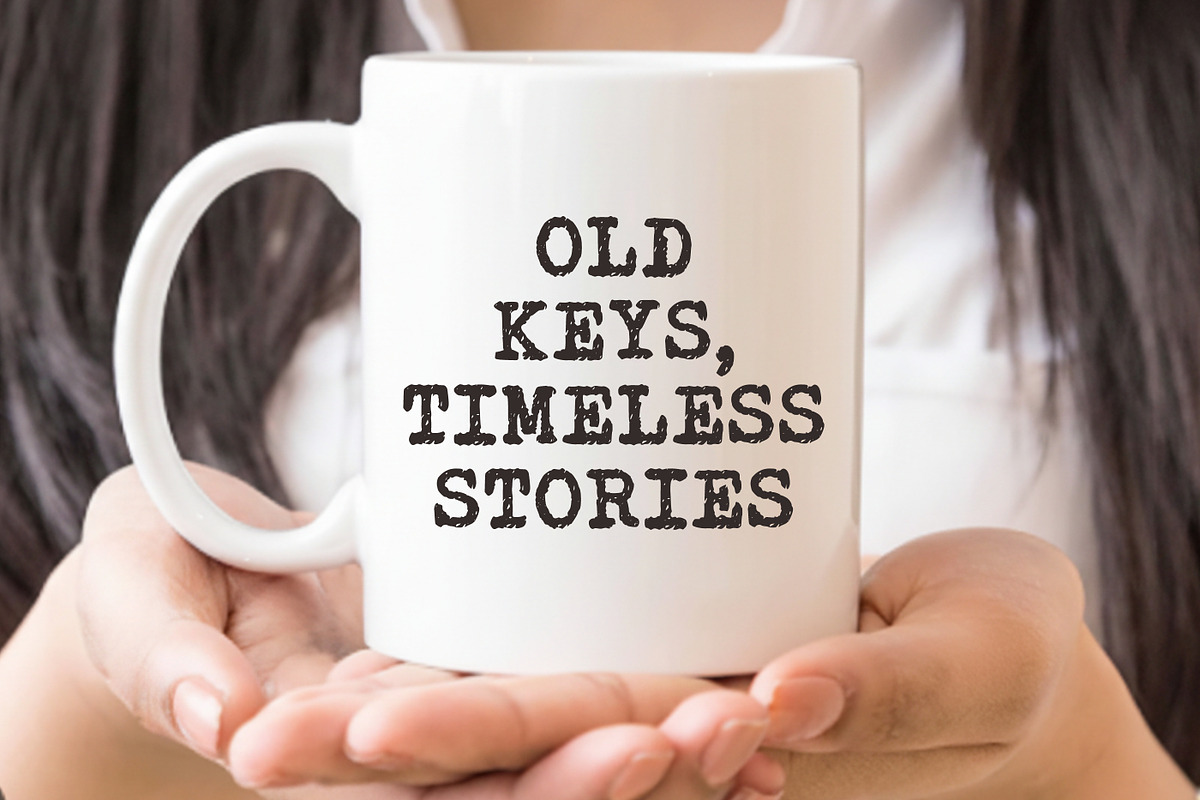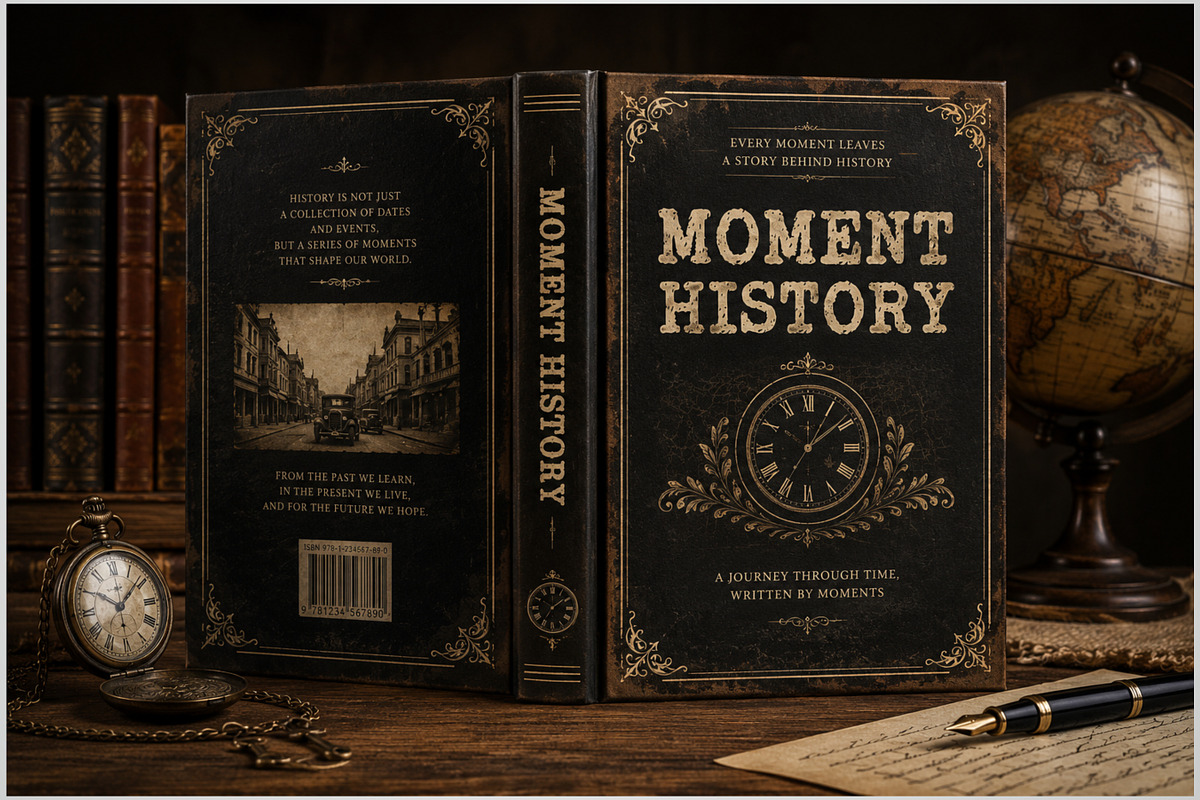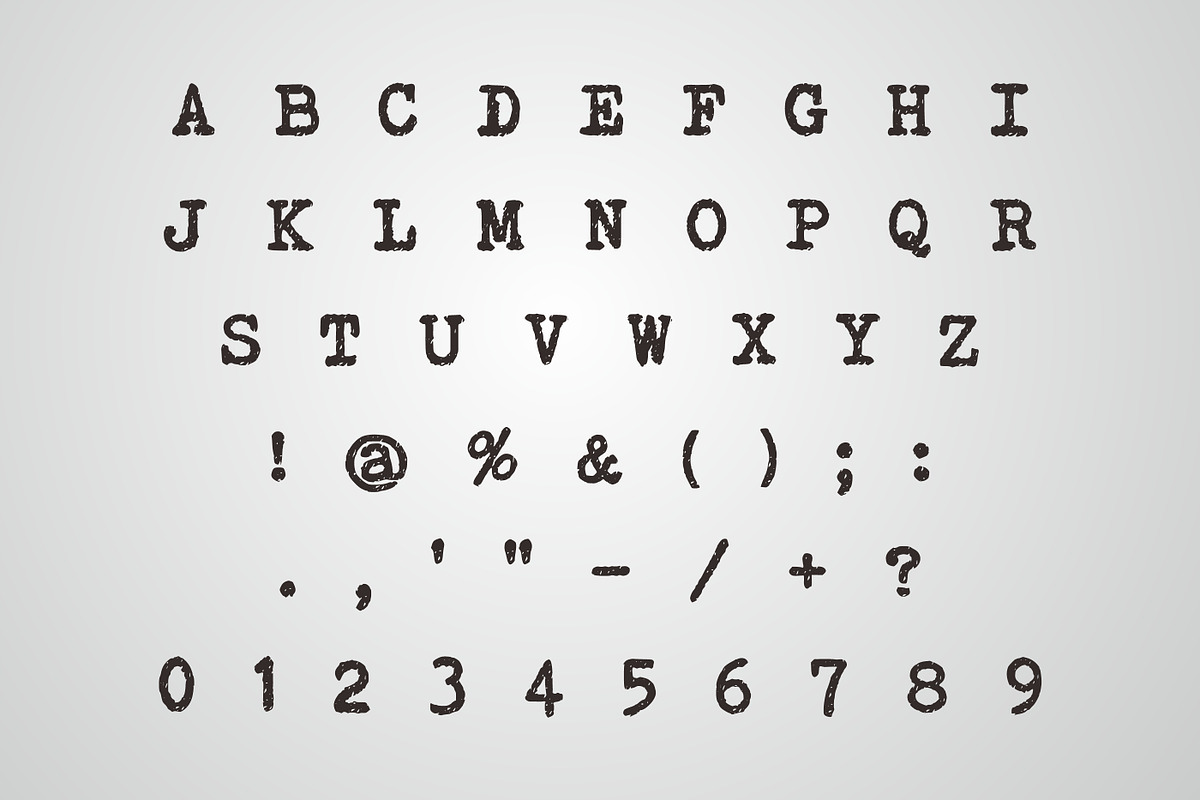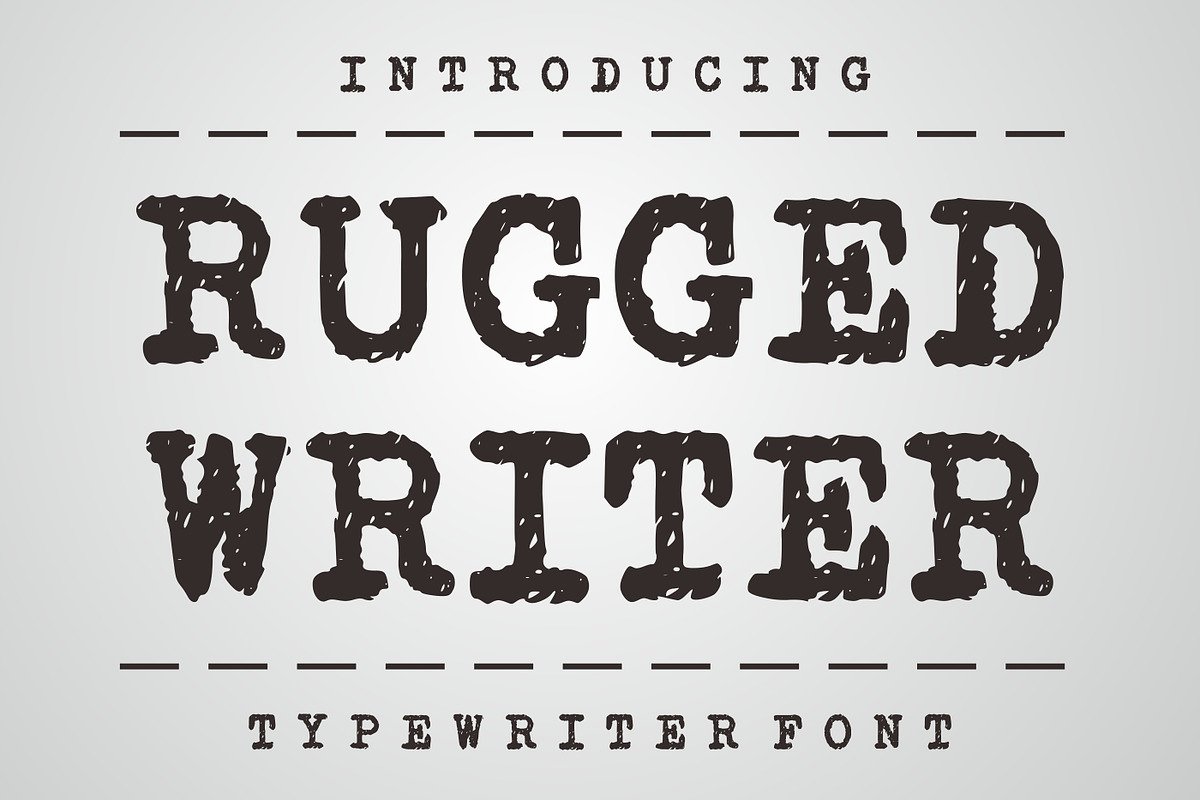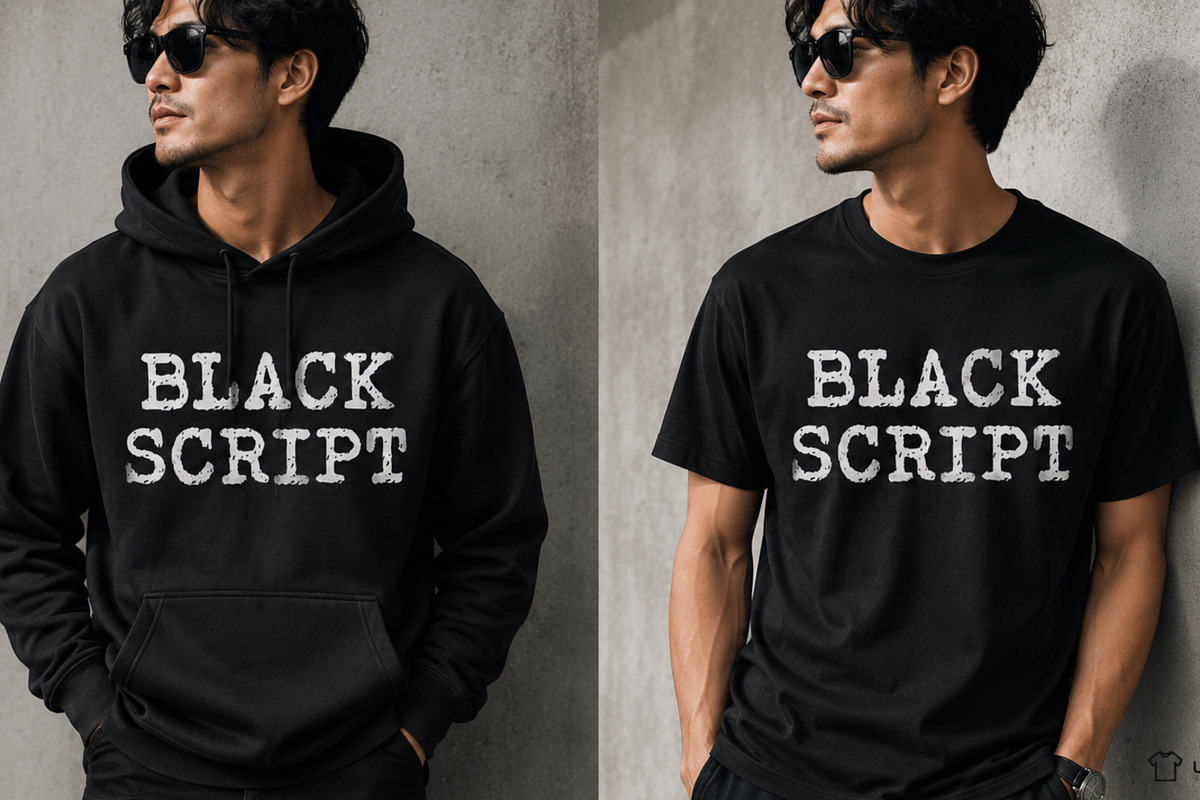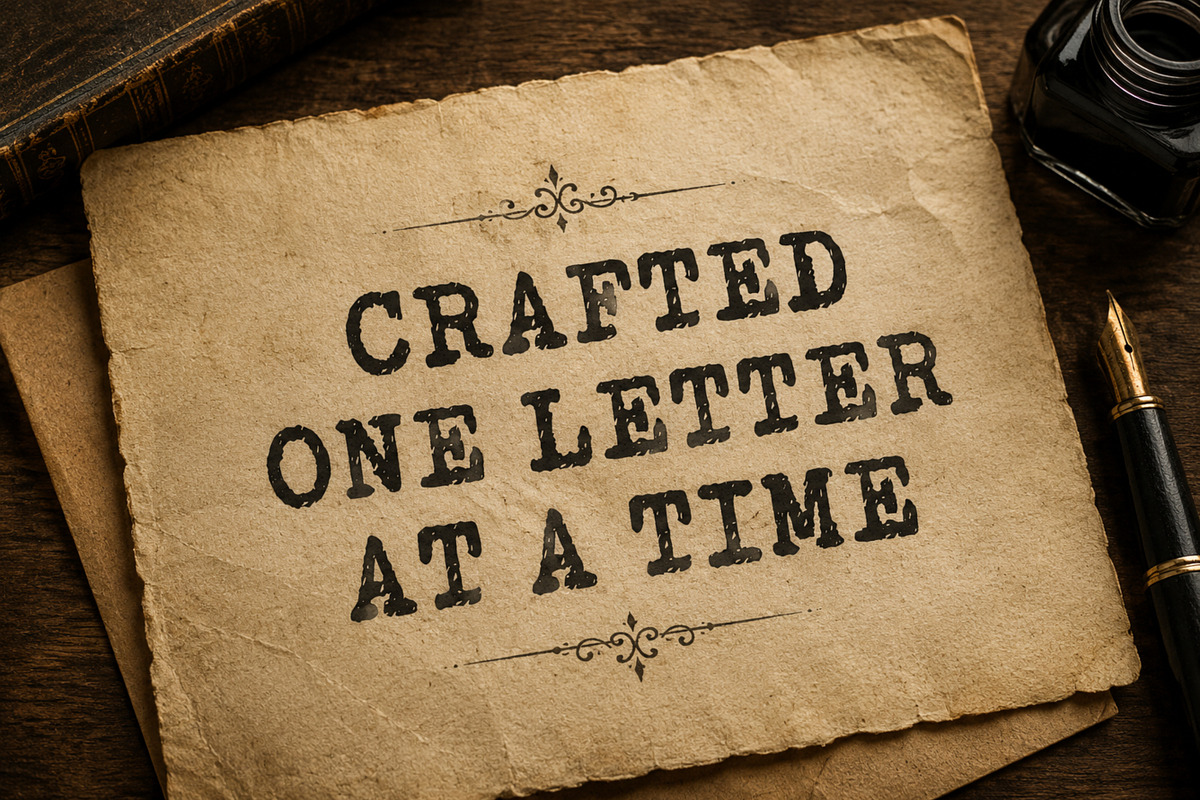
Rugged Writer
Rugged Writer is a bold vintage display font featuring a rough, distressed texture that brings an authentic handcrafted feel. Inspired by classic western typography and retro printing styles, this font is perfect for branding, apparel design, posters, book covers, logos, and rustic-themed projects. Its strong character and imperfect edges give a timeless and masculine aesthetic, making it ideal for creative designs that need a bold statement.
– Uppercase letters – Numbers & punctuation – Rough / distressed texture – Vintage & western style – Strong readability